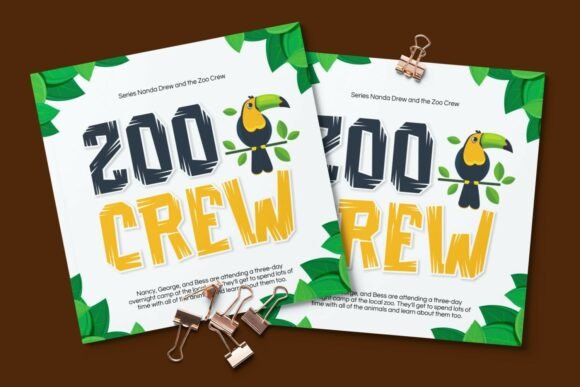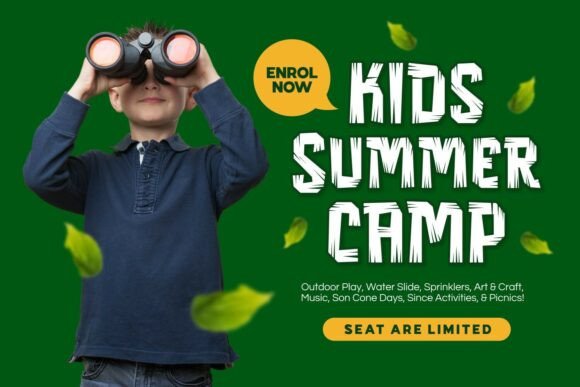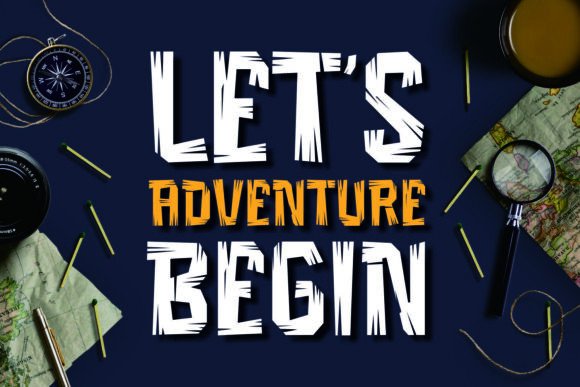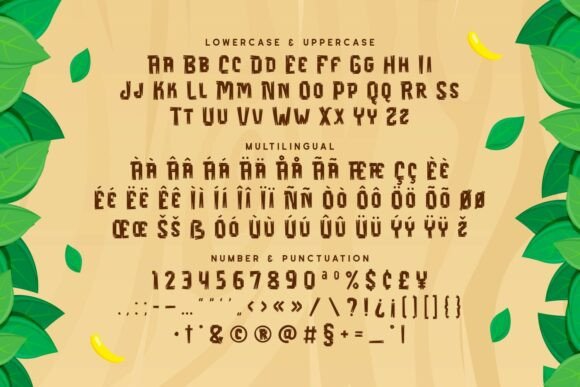
Introduction to Roughty Font
Roughty is a adventurous and decorative playful font designed to capture the spirit of exploration.
This font have a rough, textured, and slightly distressed appearance, mimicking a woodcut style The font features jagged edges and irregular, giving it a rugged, adventurous, and slightly vintage feel.